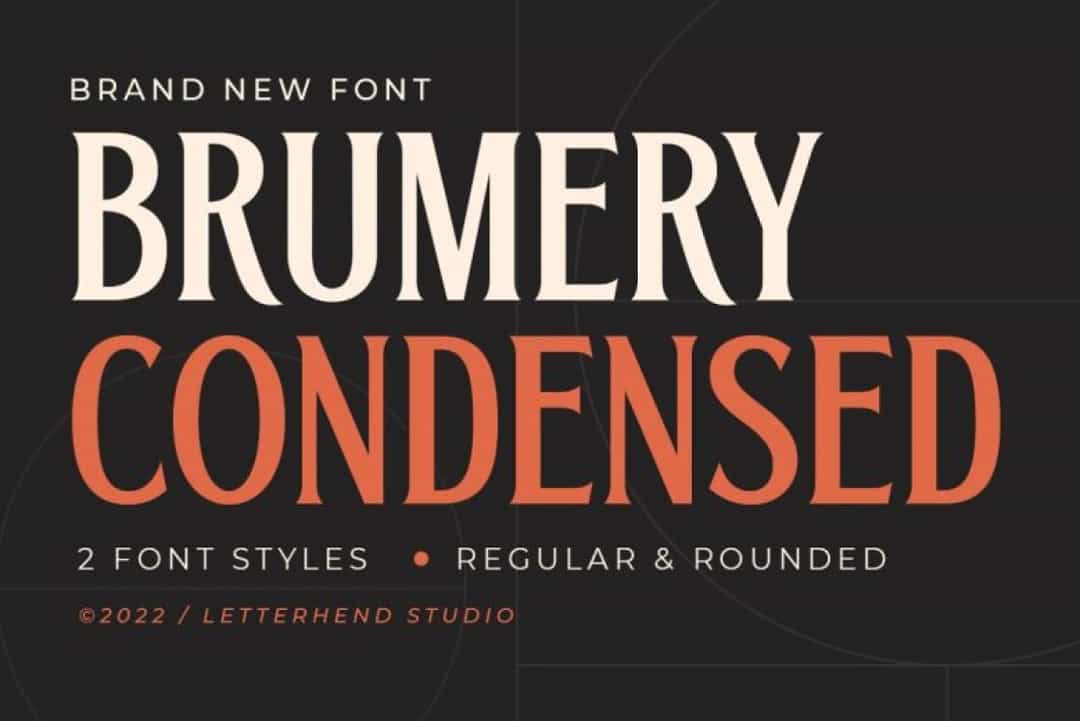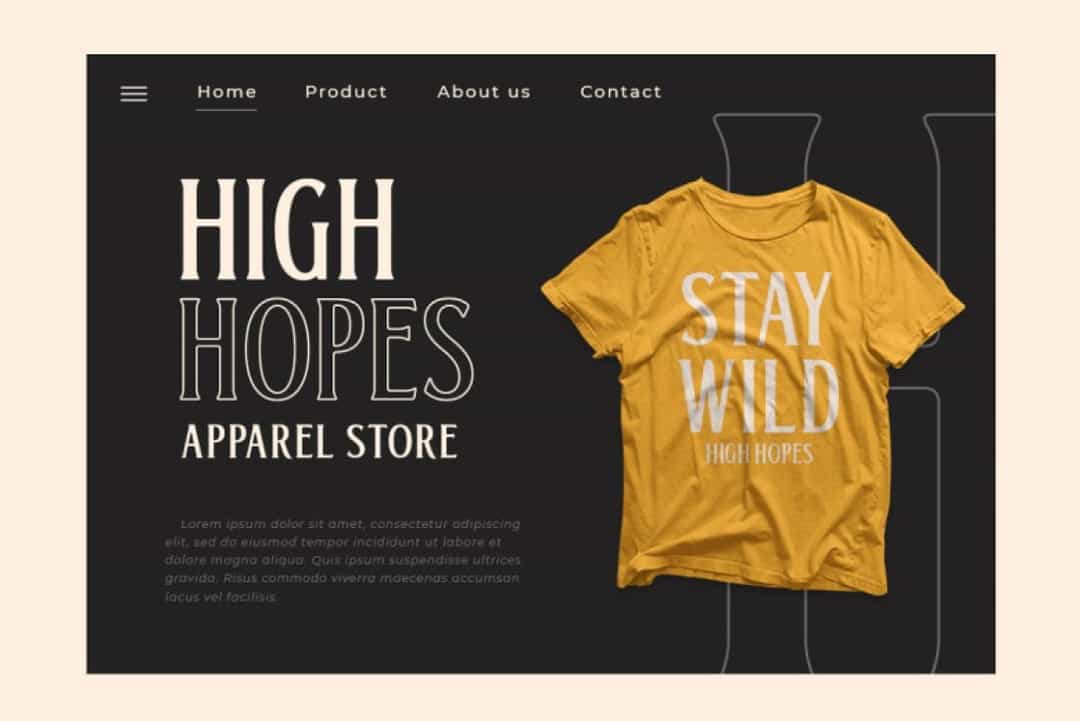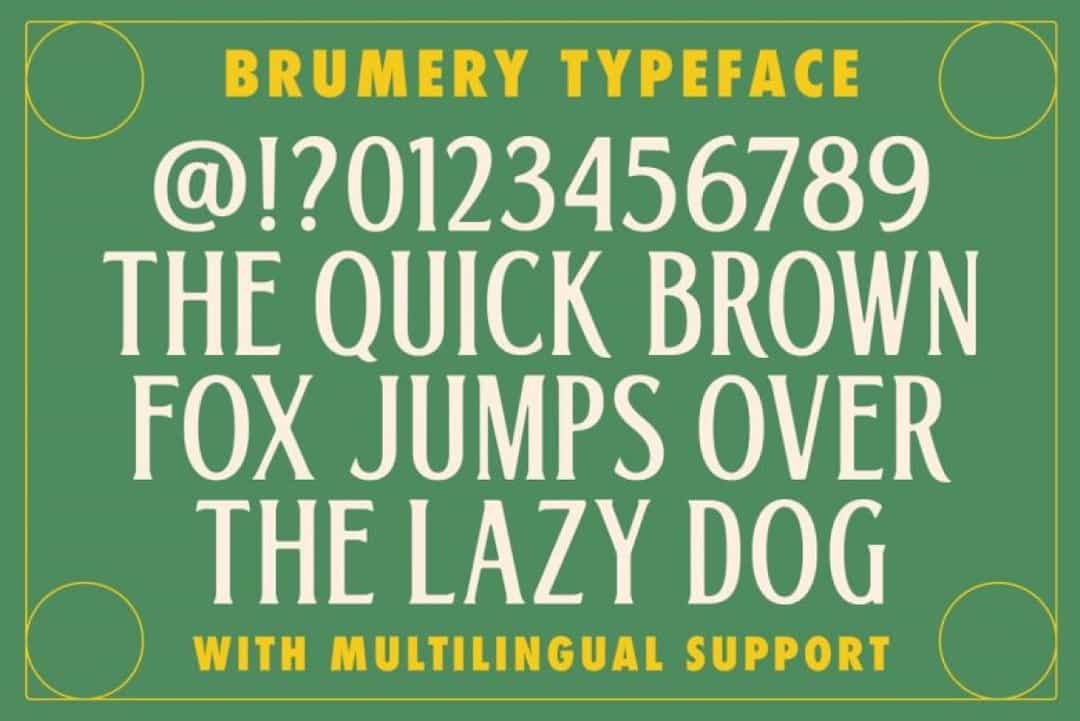
Discover Brumery Condensed Font, part of the Serif collection—a versatile and unique font perfect for adding a personal touch to your projects. Download it for free and enjoy crafting designs with style, from invitations to social media posts. This font is available exclusively for personal use, giving you the freedom to create without limits. Unlock your creativity with Brumery Condensed Font today!
Brumery Condensed can be described as a modern condensed serif typeface, making it suitable for formal forms like labels, invitations or magazines, logos, books greeting cards wedding or wedding cards packaging fashion makeup books stationery labels or any other advertising purposes.